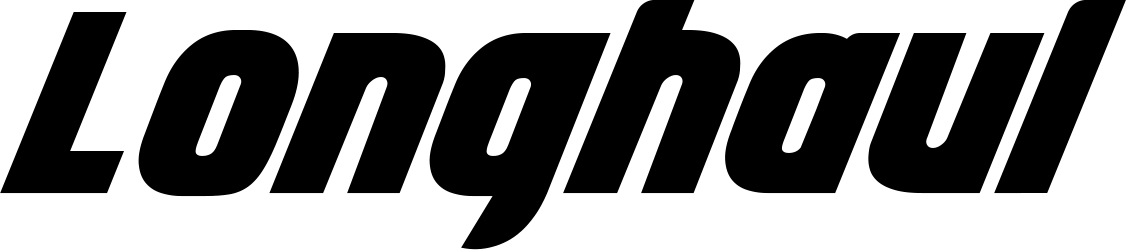
Longhaul Font
Longhaul is a modern appeal, a brand new sans serif font with semi-bold italic lettering. Although it doesn’t support a whole lot of symbols, this straightforward and approachable font is an excellent choice for packaging, business cards, shop signs, flyers, etc.